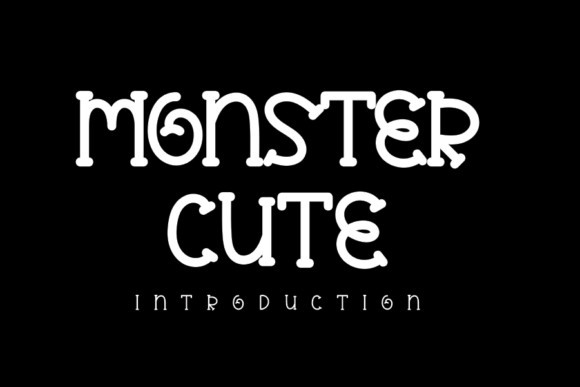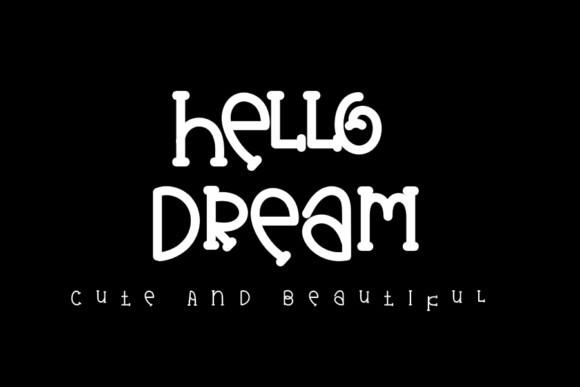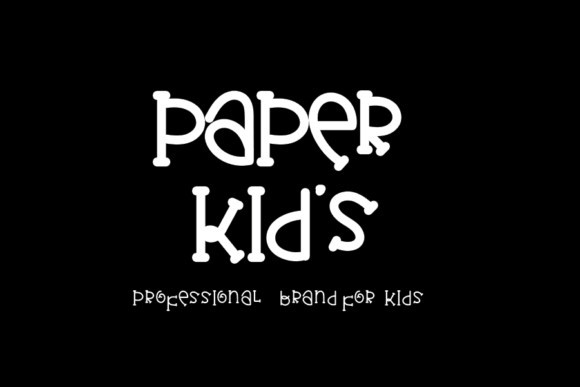
Monster Cute Font
Monster Cute is a bold yet sweet and friendly display font. A little bit quirky, this font looks incredibly adept on a wide variety of contexts!